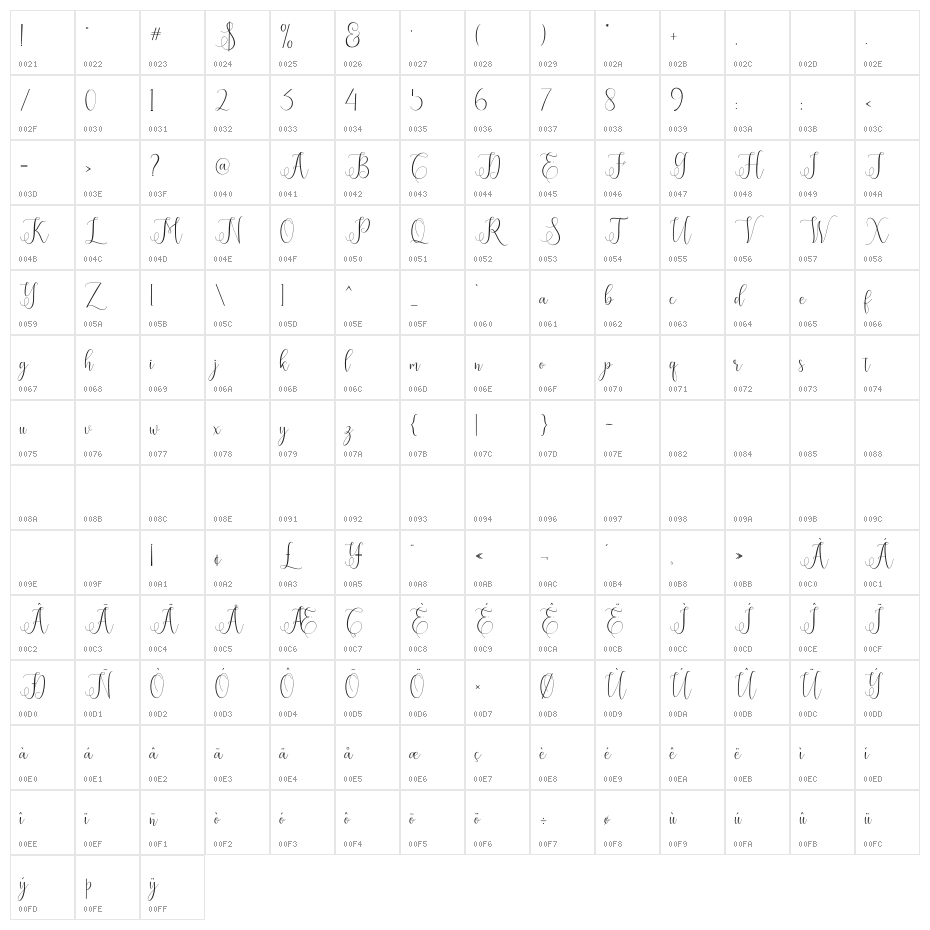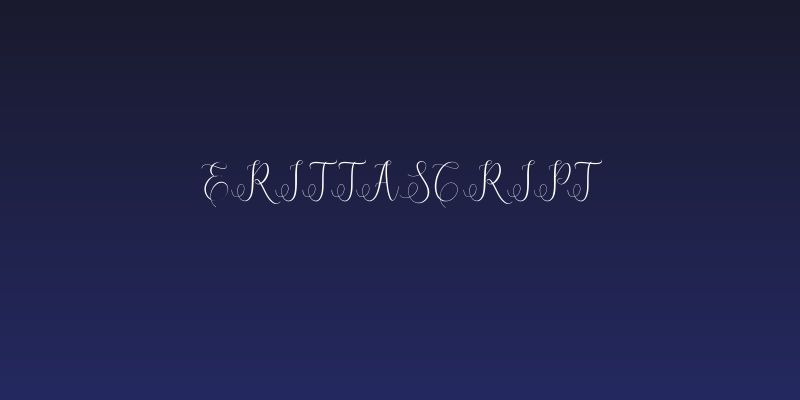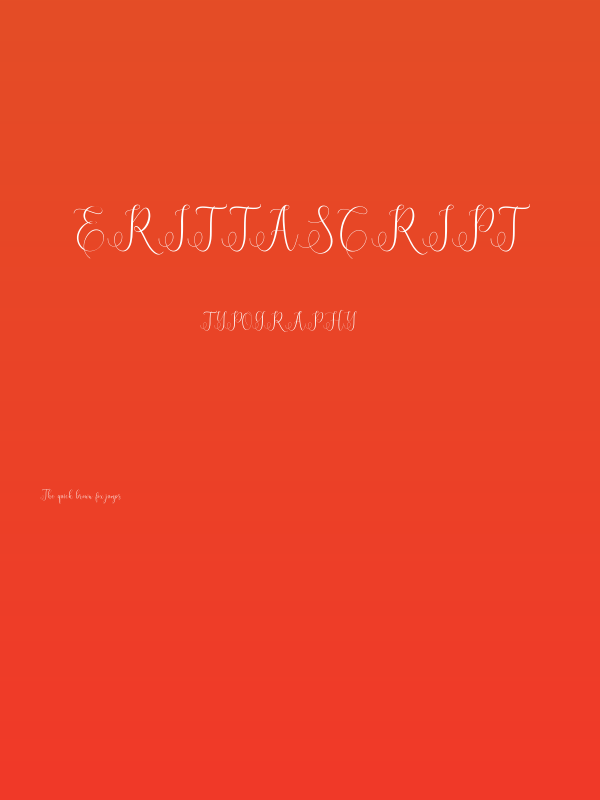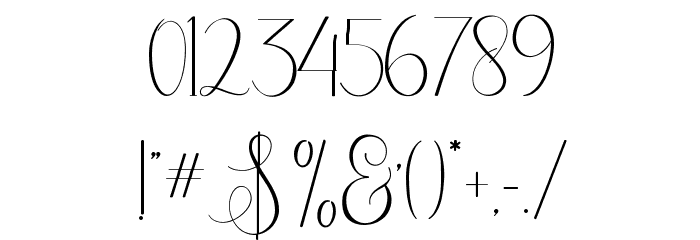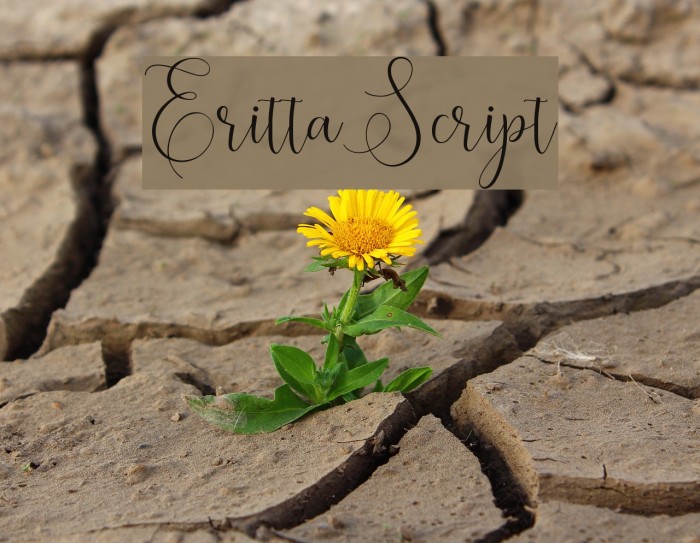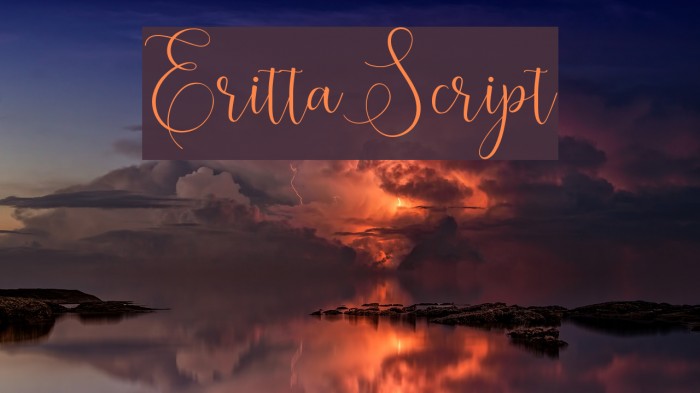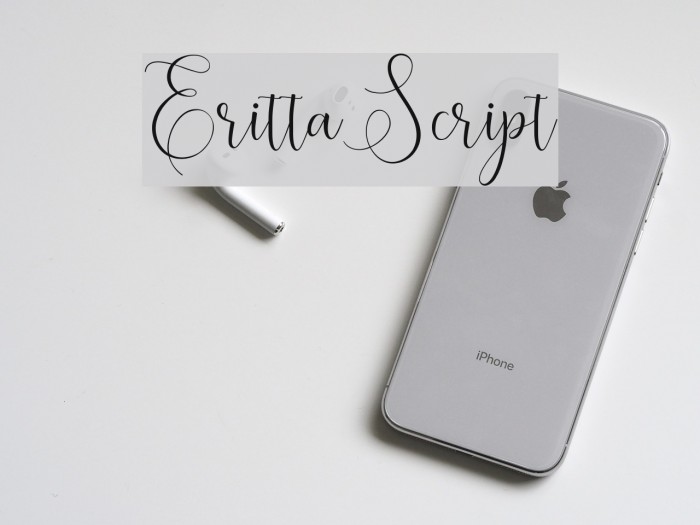
ErittaScript Font
ErittaScript Description
This elegant script font features a flowing, cursive style with intricate loops and swashes, giving it a sophisticated and artistic appearance. The uppercase letters are particularly ornate, with decorative flourishes that add a touch of luxury and refinement. The lowercase letters maintain a consistent flow, making it suitable for creating beautiful, connected text. The numerals are clear and stylish, complementing the overall aesthetic. Special characters are designed with the same attention to detail, ensuring a cohesive look across all elements. This font is perfect for projects that require a touch of elegance and creativity.
| Overall Style | Elegant, Artistic |
| Use Case | Logos, Invitations, Decorative text |
| Proposed Projects | Ideal for wedding invitations, luxury branding, greeting cards, and elegant packaging designs. |